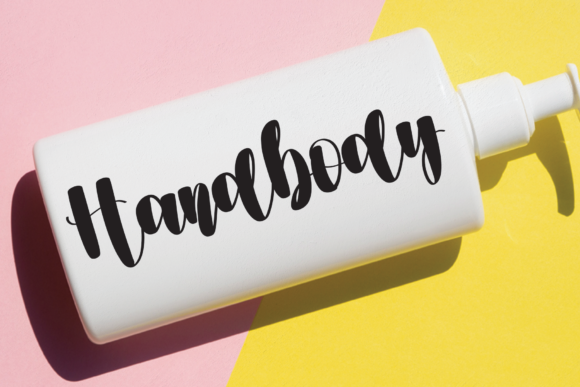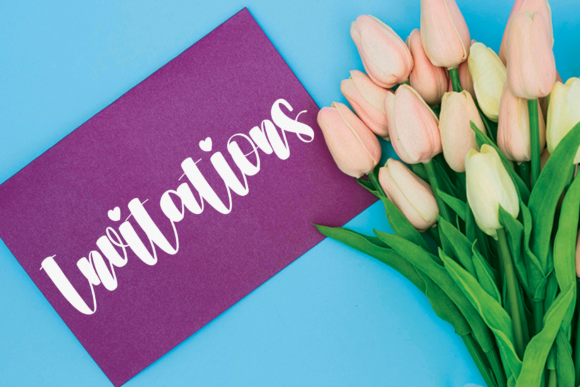
Hello Wedding Font
db-ku.com - Script & Handwritten -- Hello Wedding is a lovely script font featuring charming, playful characters that seem to dance along the baseline. Add this font to your most creative ideas, and notice how it makes them stand out!